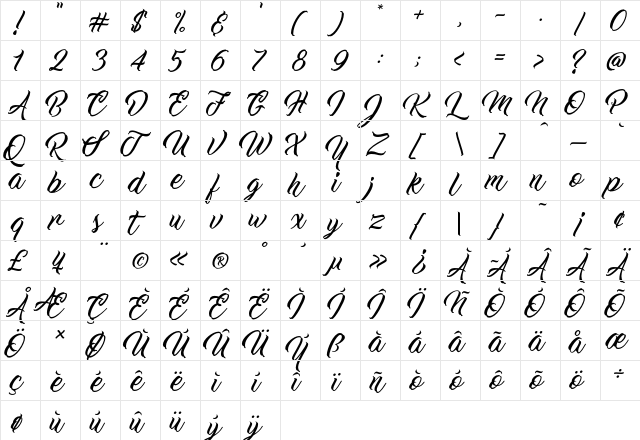
Work In Progress Regular
| Foundry | Clement Nicolle - StereoType |
| Designer | Clement Nicolle |
Design Context for Work In Progress Typeface
Work In Progress is a composed and adaptable typeface that performs quietly and consistently across a wide range of design contexts.